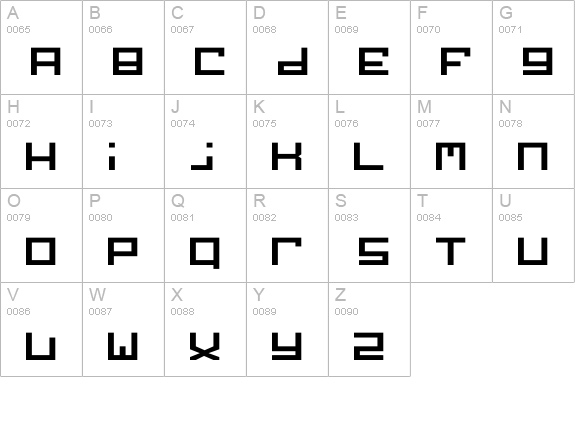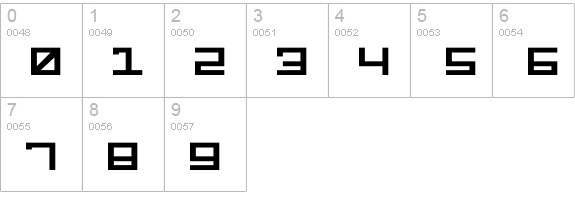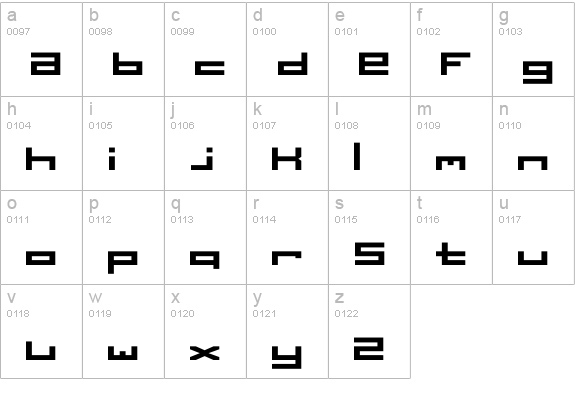
Introducing Public Nation font, a versatile typeface that embodies the spirit of inclusivity and community. With its bold yet approachable design, Public Nation is perfect for a wide range of projects, from posters to logos to social media graphics. This font exudes a sense of openness and friendliness, making it ideal for conveying messages of unity and togetherness. What sets Public Nation apart is that it is completely free to download at FontsMarket.com. This means that you can easily access and use this font without any cost, allowing you to bring your creative visions to life without any barriers. So go ahead and enhance your designs with the inviting charm of Public Nation font today!